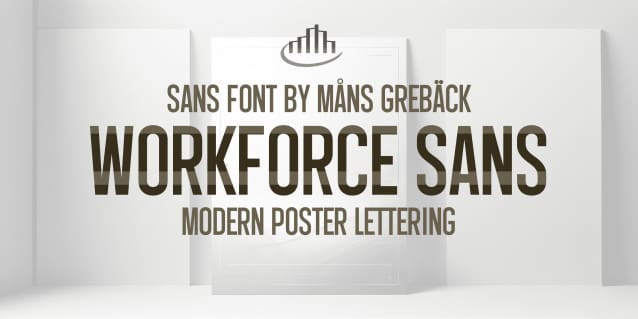
Workforce Sans Font
Workforce Sans Font is a tall sans-serif typeface. This modern font is made for headlines and posters intended to leave a lasting impression.